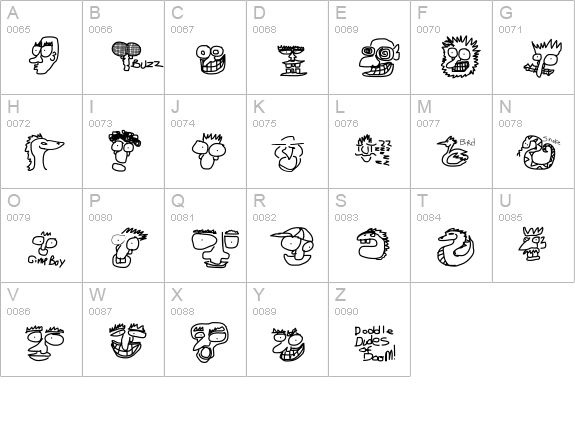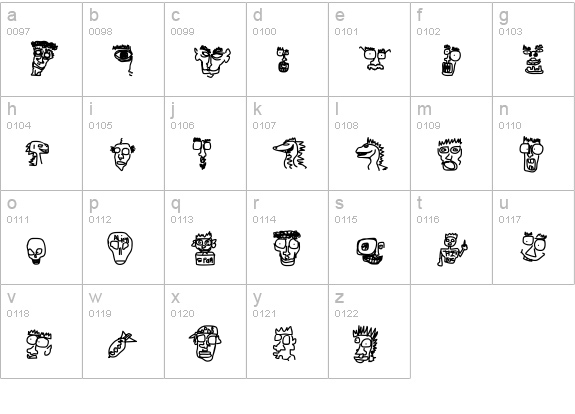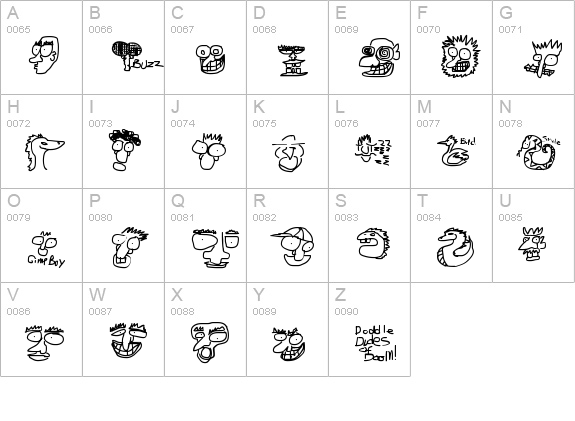
Doodle Dudes of Doom Font Details
The Doodle Dudes of Doom font is a playful and quirky typeface that is perfect for adding a fun and whimsical touch to your projects. With its bold and energetic letterforms, this font exudes a sense of creativity and adventure. Whether you're designing posters, invitations, or social media graphics, the Doodle Dudes of Doom font is sure to make your text stand out. And the best part? This font is completely free to download at FontsMarket.com! So go ahead and unleash your creativity with the Doodle Dudes of Doom font today.